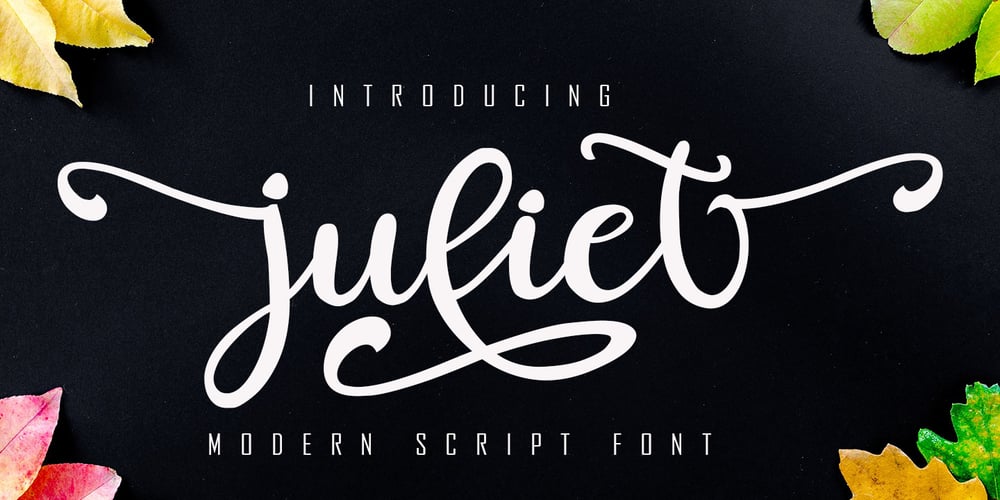
Juliet Font Family was designed by Irfan Mahmudin and published by Skiiller Studio. Juliet contains 1 styles and family package options. Juliet is a modern calligraphy script with flowing curves. It will add a romantic touch to any crafting project!